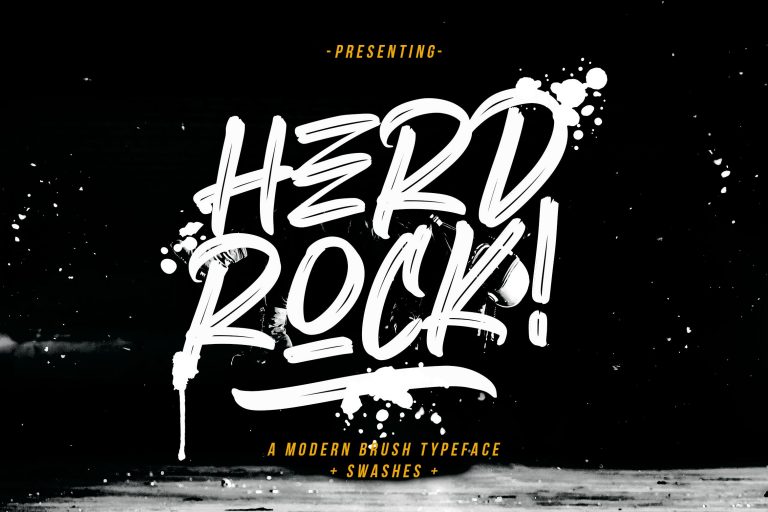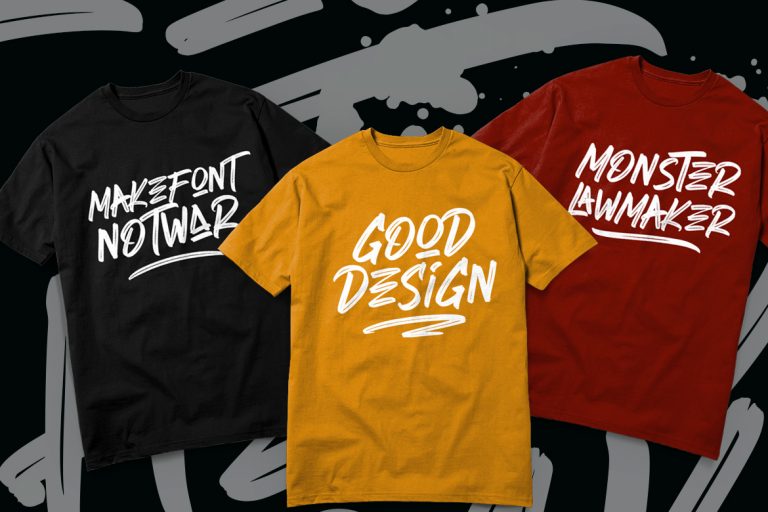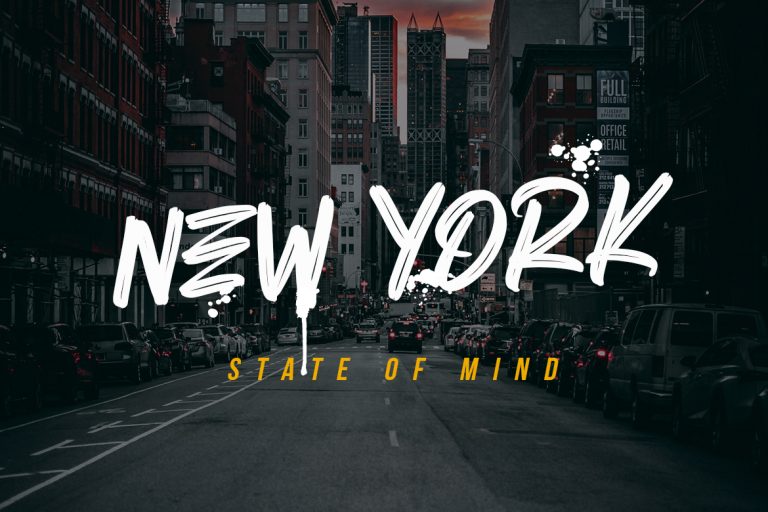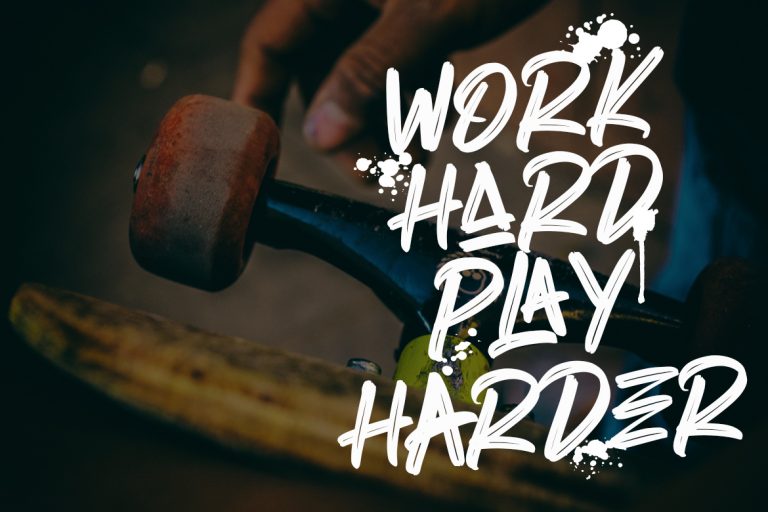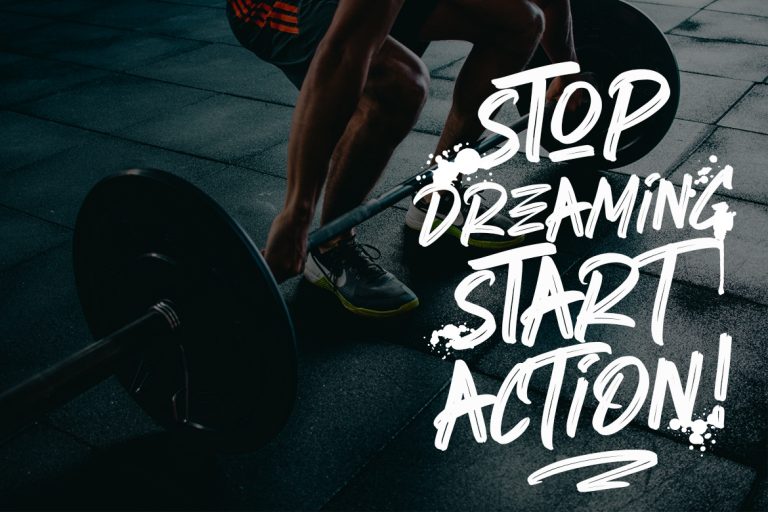
Herdrock Brush Typeface
Herdrock is a supercharged brush font bursting with inline striping modern style.
Herdrock is perfect for branding projects, logo, wedding designs, social media posts, advertisements, product packaging, product designs, label, photography, watermark, invitation, stationery and any projects that need handwriting taste.
• Ligature